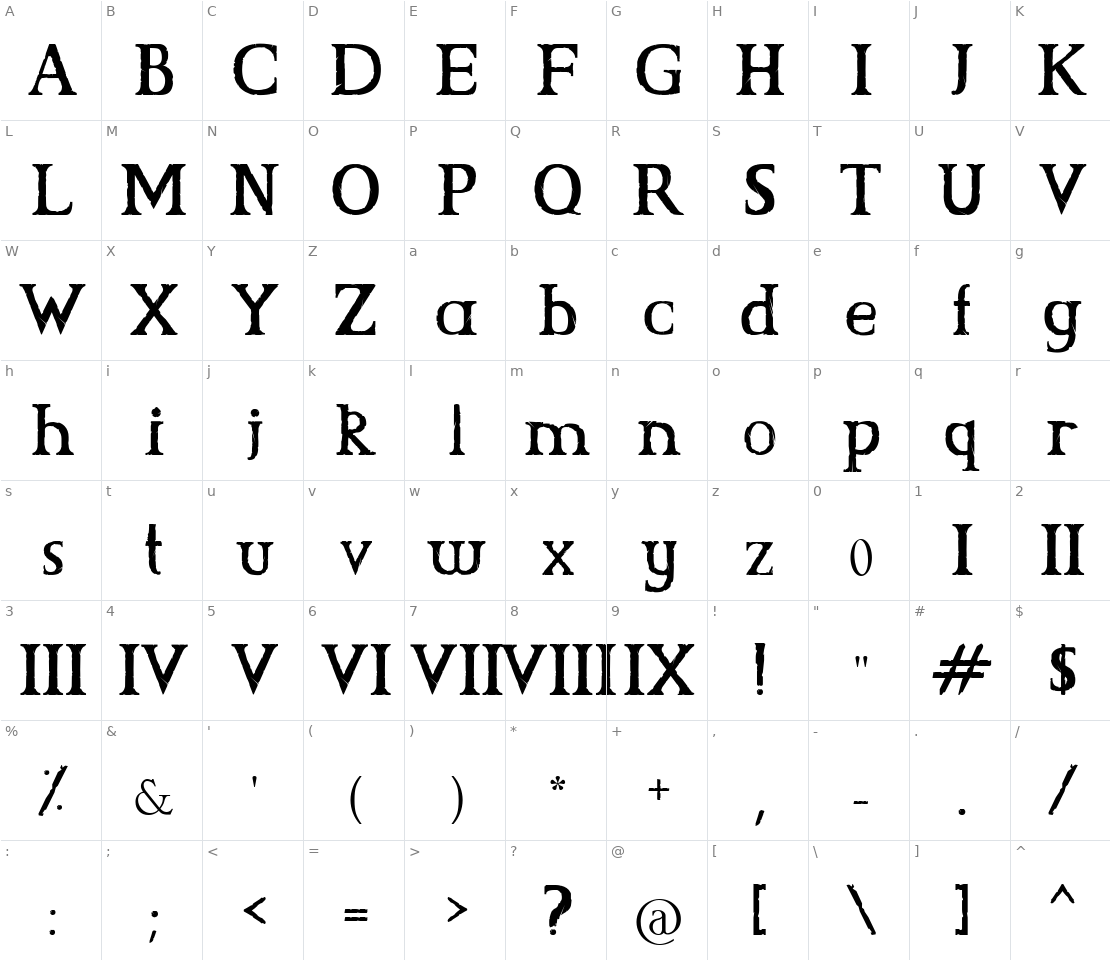
CS Grimrock
CS Grimrock is a distressed serif from CharlieSamways with a heavily worn, textured surface that makes every letter look like it was pulled from a decades-old letterpress. The rough edges and uneven ink coverage give it genuine grunge character without sacrificing the underlying serif structure, so it still reads clearly at headline sizes. A natural pick for vintage branding, poster work, and editorial headers where you want type that feels weathered and lived-in.